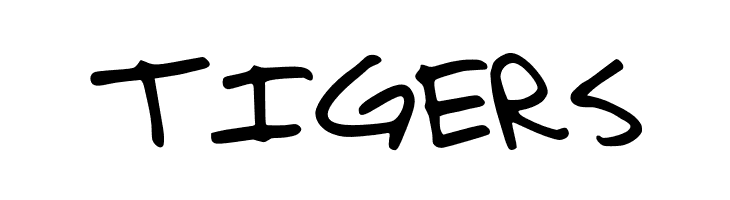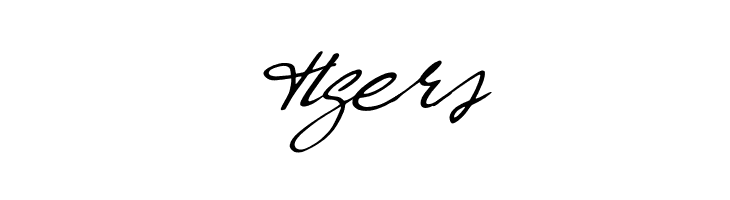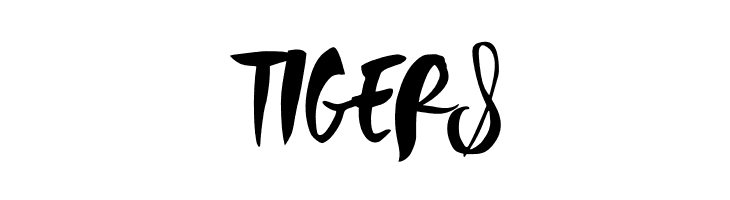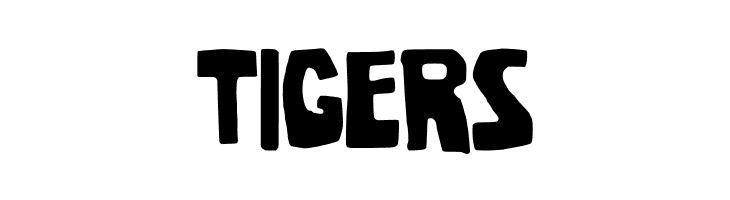
A playful, handwritten font with bold strokes and a casual, dynamic style.
A dynamic and fluid handwritten script with elegant, sweeping curves.
A bold, expressive handwritten font with dynamic strokes and artistic flair.
A bold, hand-drawn font with a playful and irregular style.
A casual, handwritten font with a playful and informal style.